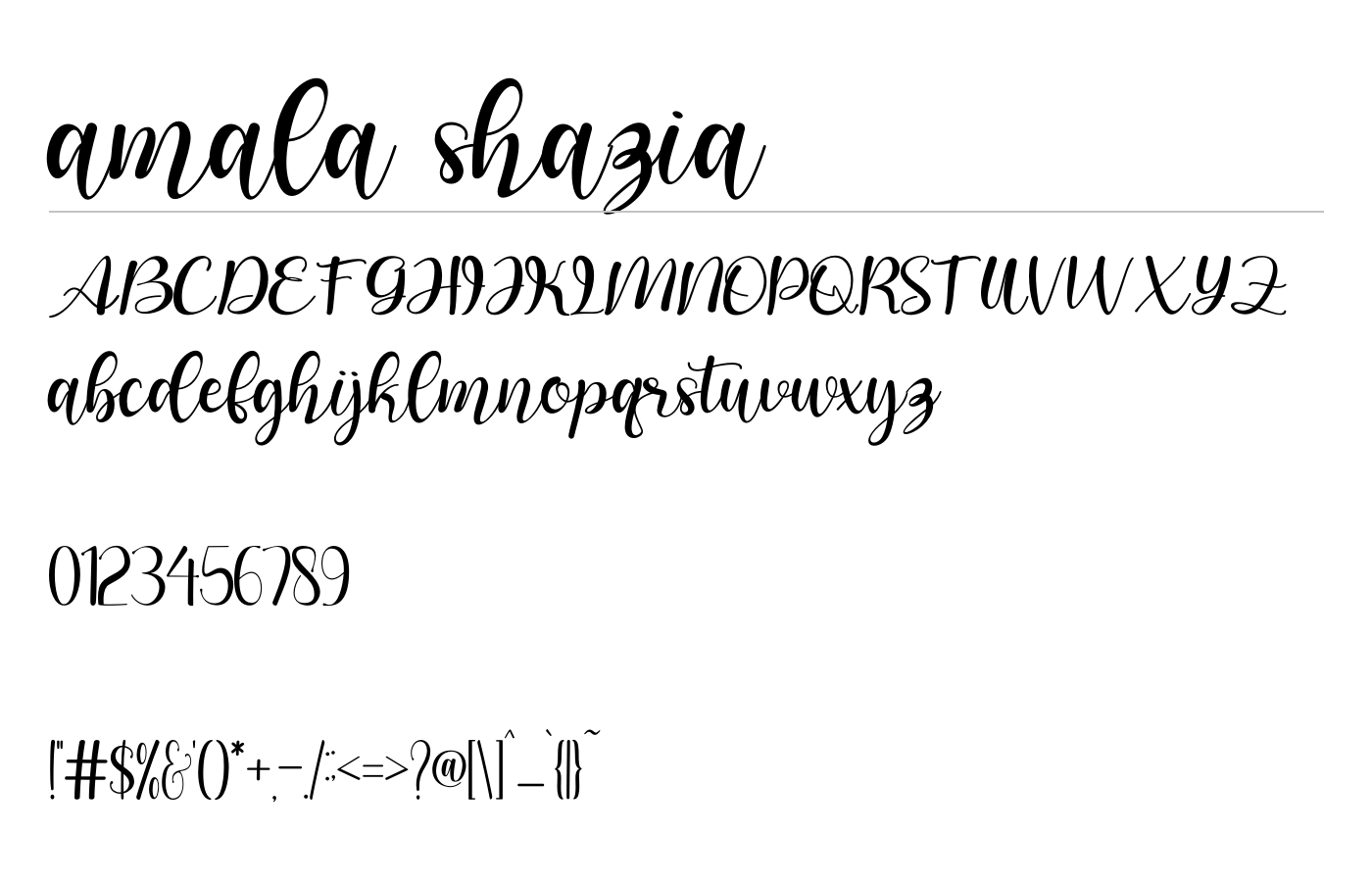
Amala Shazia is a graceful script font featuring elegant, flowing letterforms with a moderate contrast between thick and thin strokes, creating a refined yet approachable feel. Its tall x-height and smooth curves make it ideal for feminine branding, invitations, and stylish headlines where a touch of sophistication and charm is desired. This font works beautifully in fashion, wedding designs, and any creative project seeking an elegant, modern calligraphic look.
amala shazia Font
About amala shazia Font
| Designer | tahu balap / Winarko |